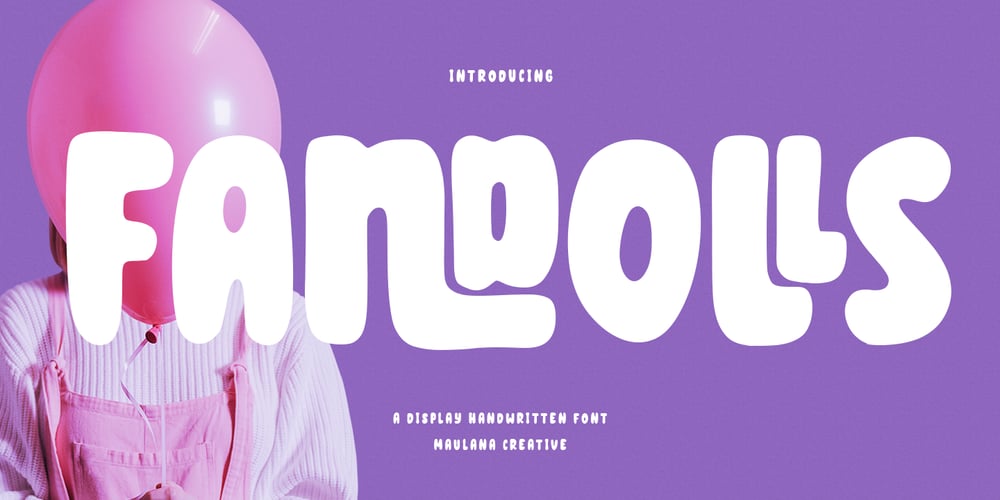
MC Fandolls
MC Fandolls font
MC Fandolls Font Family was designed by Gilang Maulana and published by Maulana Creative. MC Fandolls contains 1 styles and family package options. Fandolls is a bulb casual handwritten font. With bold stroke, fun character with a bit of ligatures and alternates. To give you an extra creative work. Fandolls font support multilingual more than 100+ language. This font is good for logo design, Social media, Movie Titles, Books Titles, a short text even a long text letter and good for your secondary text font with sans or serif. Make a stunning work with Fandolls font. Cheers, Maulana Creative